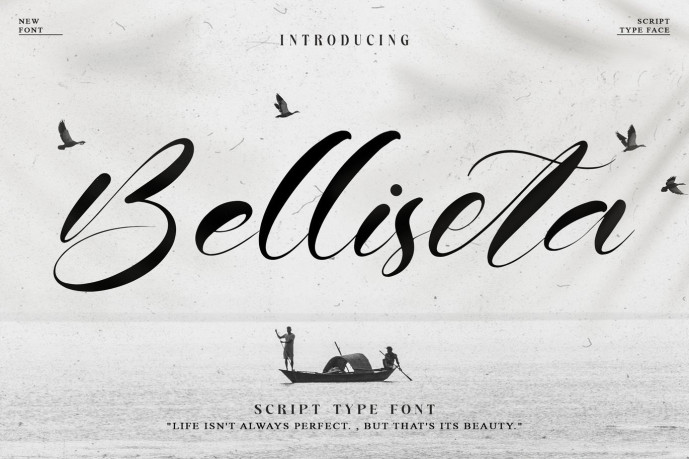
Belliseta Script Font
Designer: Chatype
Introducing Belliseta Script Font
Belliseta is a flowing calligraphic script with a pronounced rightward slant, strong thick-to-thin contrast, and long sweeping entry and exit strokes.
OpenType stylistic alternates
Decorative alternate characters